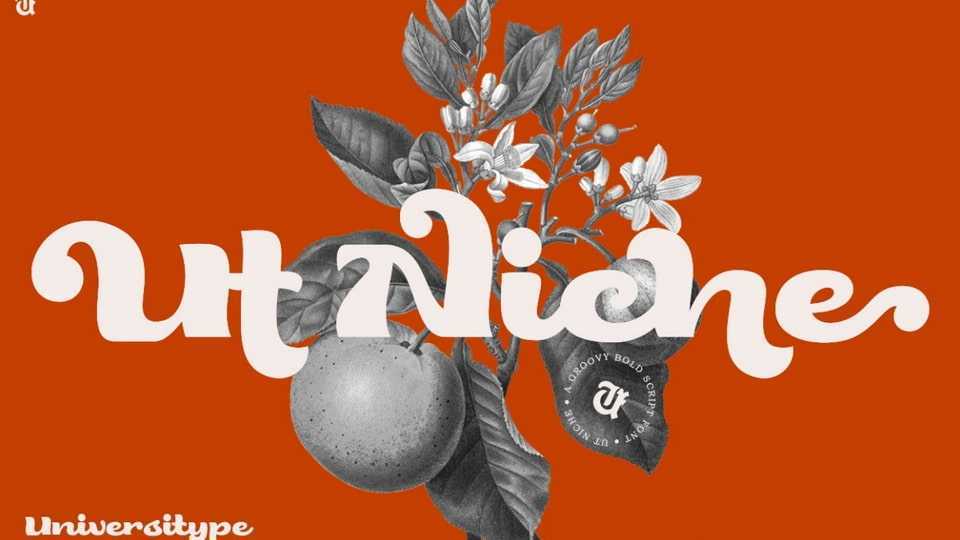
Download UT Niche font, a display typeface where vintage charm meets modern elegance in one bold, playful script, inspired by mid-century design elements.
Designer: Universitype Foundry